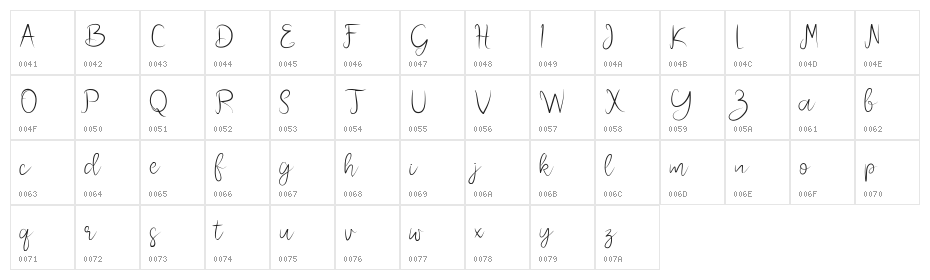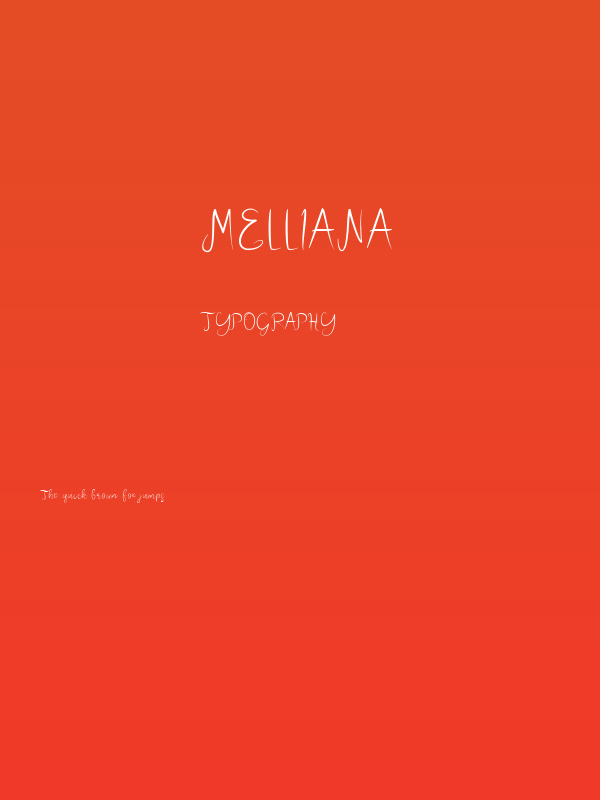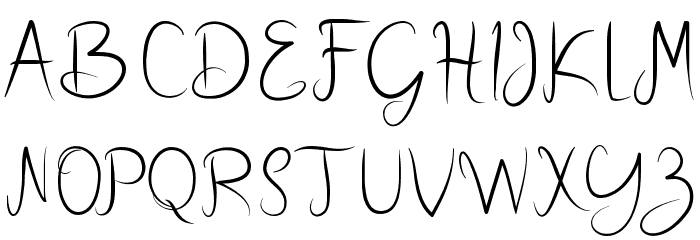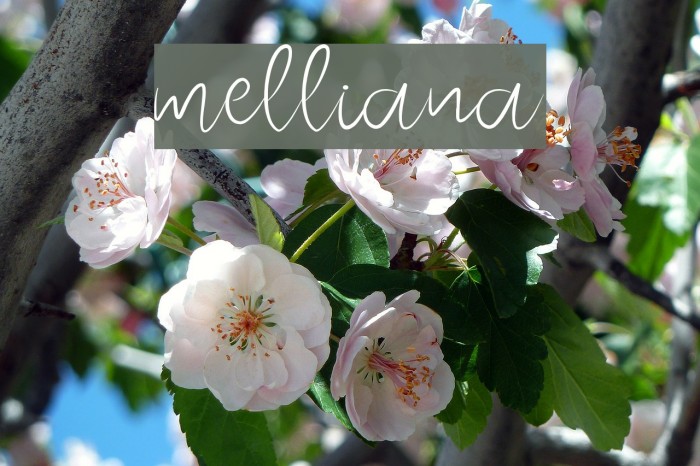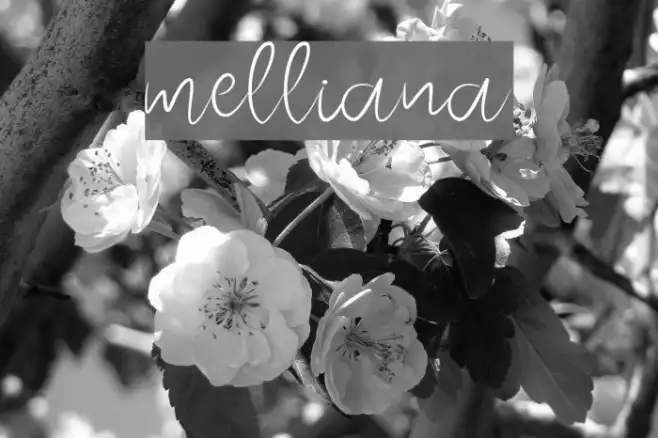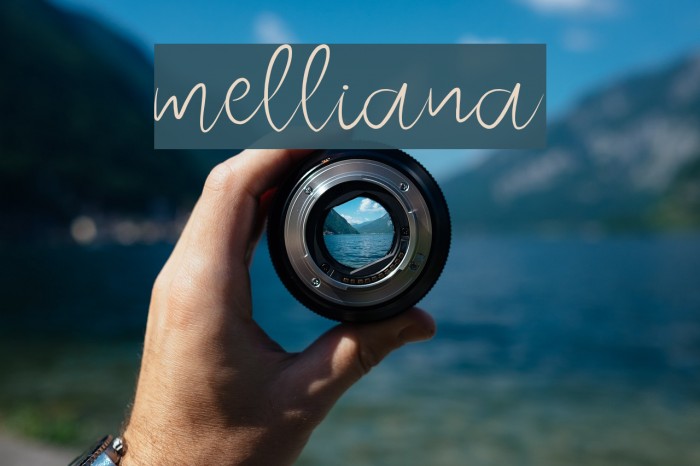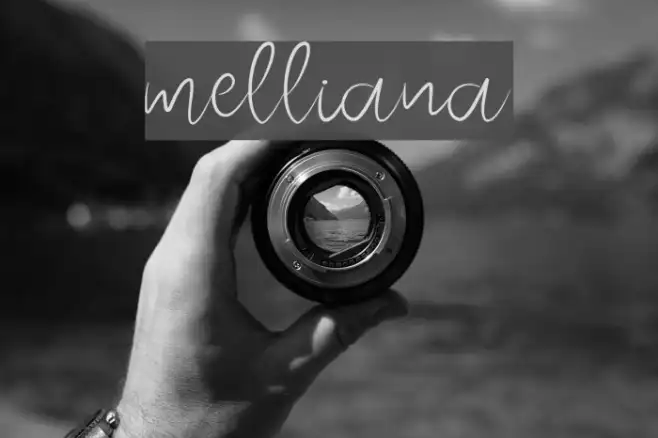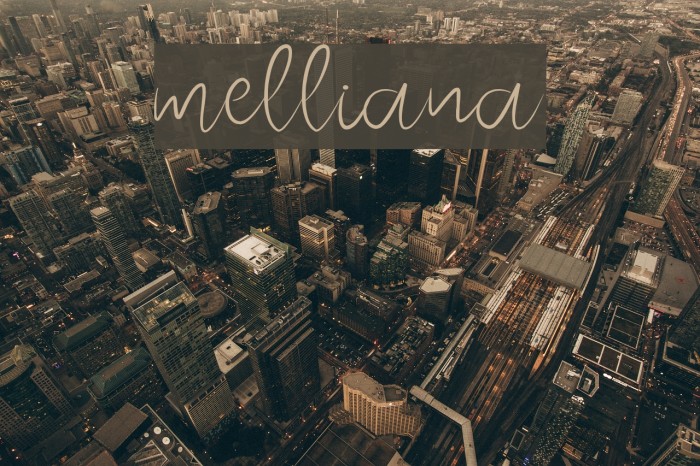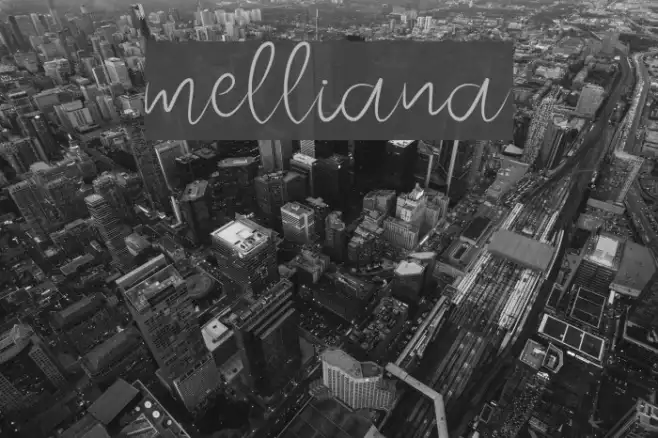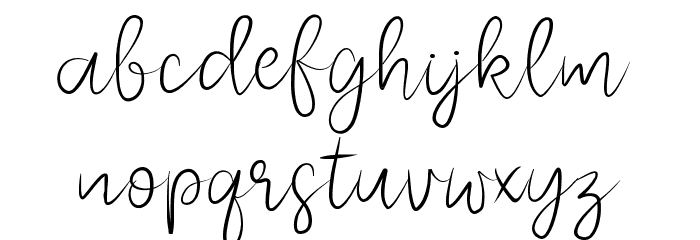
melliana Font
melliana Description
This elegant script font features a flowing, cursive style with graceful loops and swashes. The uppercase letters are tall and slender, with delicate flourishes that add a touch of sophistication. The lowercase letters maintain a consistent flow, with smooth connections between each character. The numbers and special characters are designed to complement the overall style, maintaining the same elegant and fluid appearance. The font's design is both artistic and readable, making it suitable for a variety of creative projects.
MELLIANA UPPERCASE
MELLIANA LOWERCASE
MELLIANA OTHER CHARS
| Overall Style | Elegant, Artistic |
| Proposed Projects | Ideal for wedding invitations, greeting cards, branding, and elegant packaging designs. |